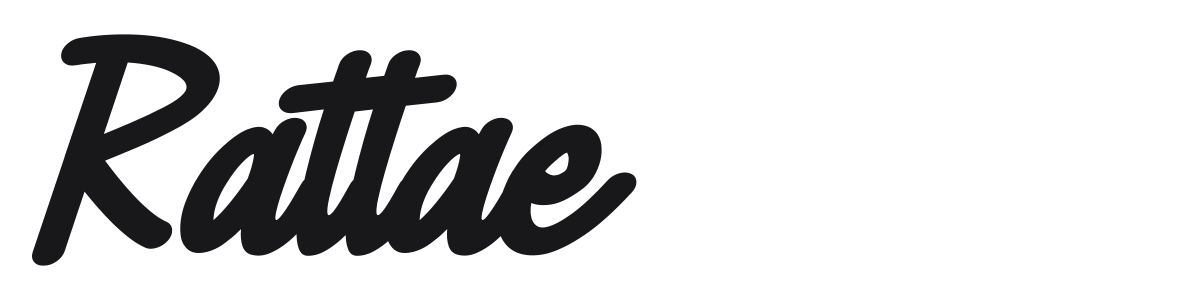
Rattae
Rattae is a bold brush script with a fast, loose energy that feels like ink laid down in one confident stroke. The heavy weight and smooth connections give it strong presence at large sizes while keeping a genuine handmade warmth. It suits branding, packaging, and posters where personality matters more than formality.